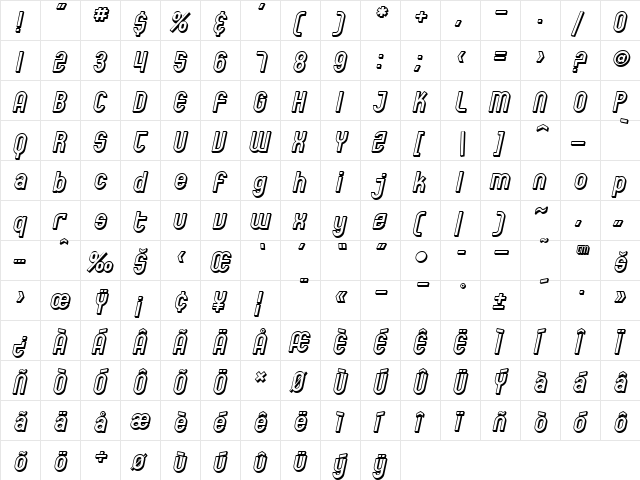
SF Eccentric Opus Shaded Oblique
Design Context for SF Eccentric Opus Shaded Typeface
SF Eccentric Opus Shaded offers clean, dependable letterforms without strong stylistic allegiance, making it a practical choice for designers who need flexibility. The slanted form adds forward momentum and visual energy.
Pro Tip: Use SF Eccentric Opus Shaded for emphasis, pull quotes, and subheadings where its slanted energy can add rhythm to the layout.